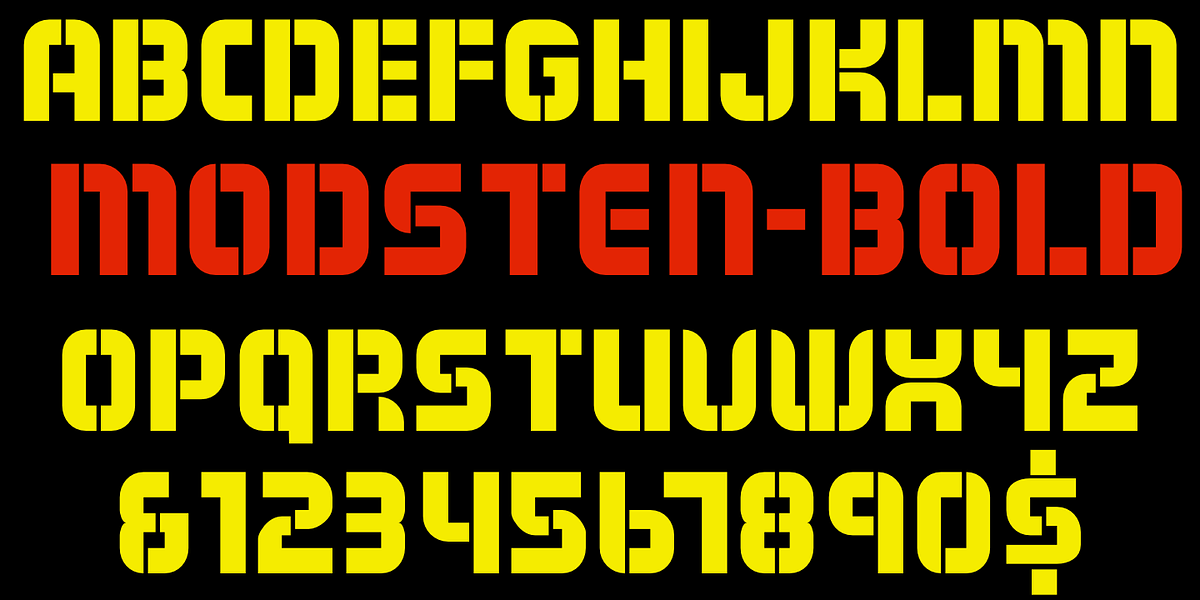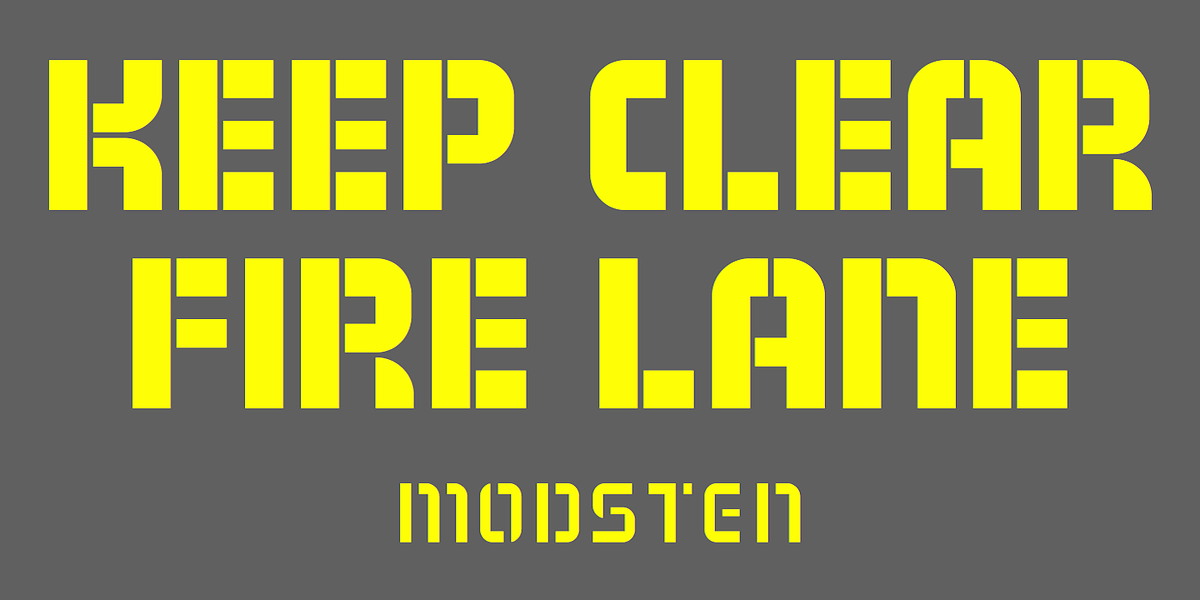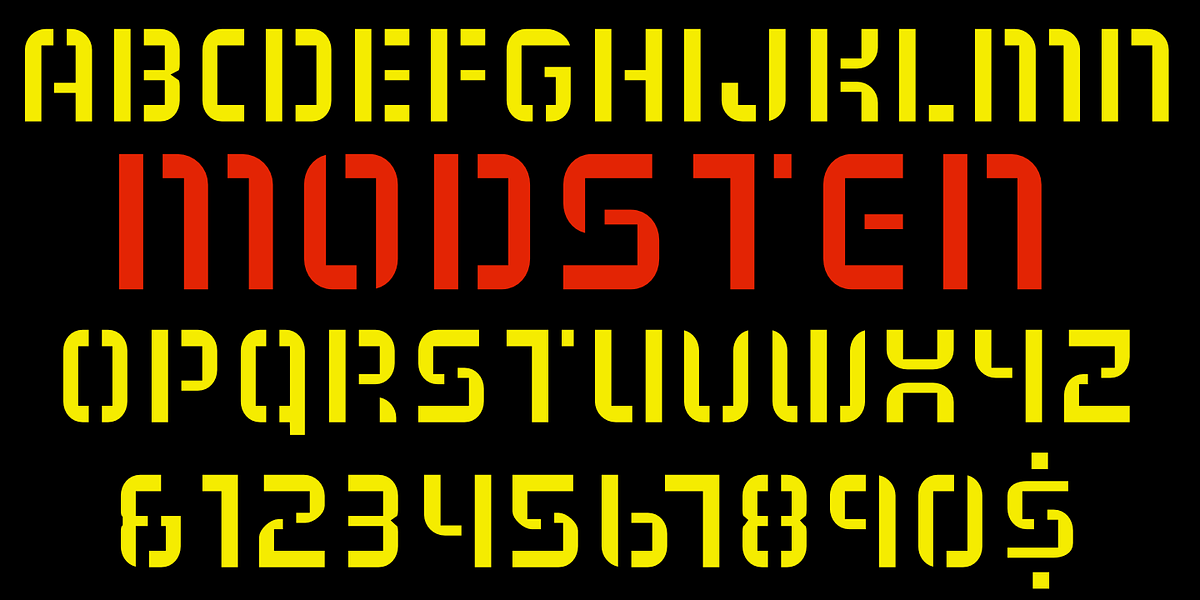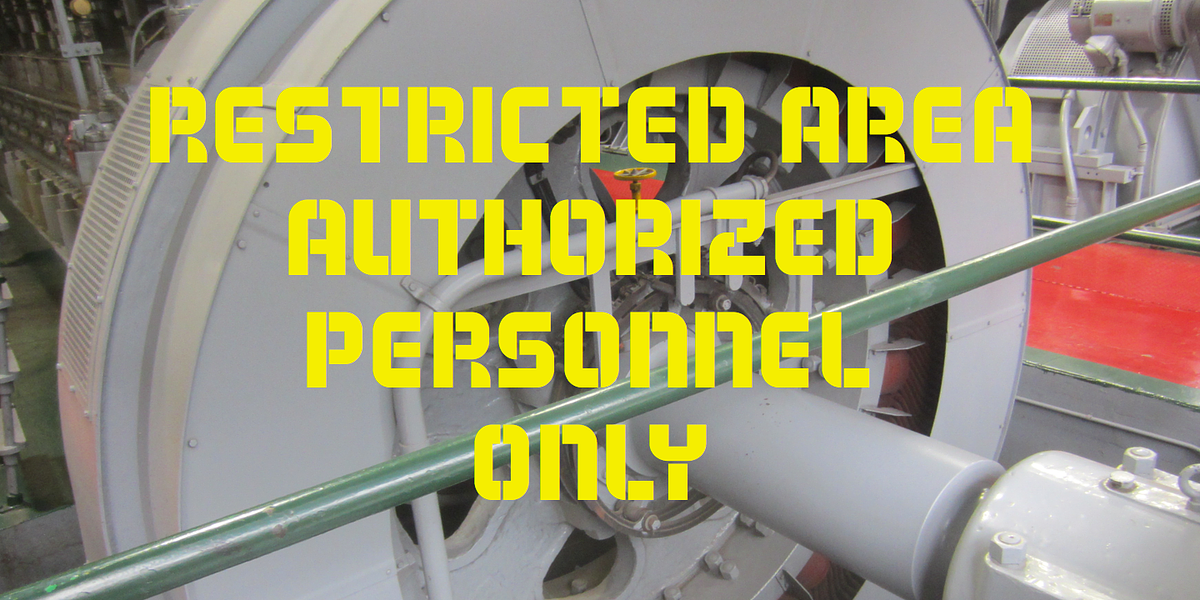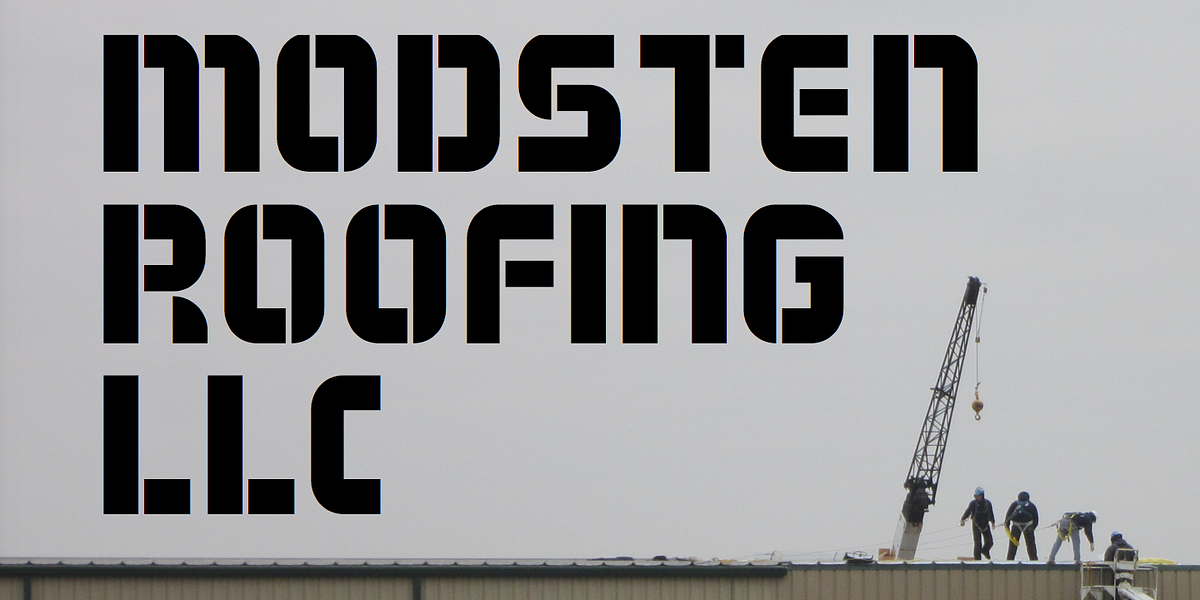
Modsten
Modsten is a geometric stencil font designed for display purposes. It features a bold weight and distinctive all-caps style. Notably, Modsten includes two sets of capital letters, offering design versatility. The addition of Modsten-plain completes the family.